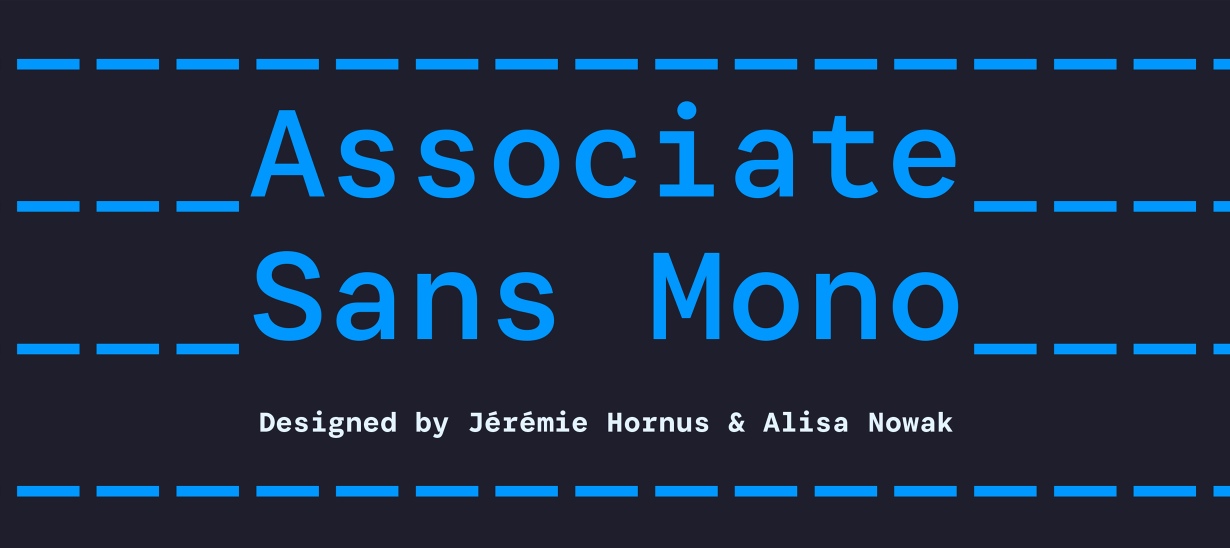
Associate Mono Font
Associate Mono Font is perfect for coding environments, terminal interfaces, technical documentation, software development tools, data visualization, financial reports with tabular data, code editor themes, programming tutorials, system administration materials, and professional developer branding.
What makes Associate Mono Font exciting is its exceptional balance of technical precision with enhanced readability that transforms the coding experience into something both functional and visually appealing. The font features perfectly uniform character spacing and carefully crafted letterforms that reduce eye strain during extended coding sessions. Its professional monospace design ensures perfect alignment of code blocks, data tables, and technical content while maintaining the clarity and distinction necessary for error-free programming and data analysis tasks.
Associate Mono Font family includes multiple weights such as Light, Regular, Medium, and Bold variations, often featuring different stylistic sets optimized for various programming languages and technical applications. The family may include specialized coding ligatures, mathematical symbols, and technical characters that enhance the font's functionality for software development, data science, and technical documentation environments.